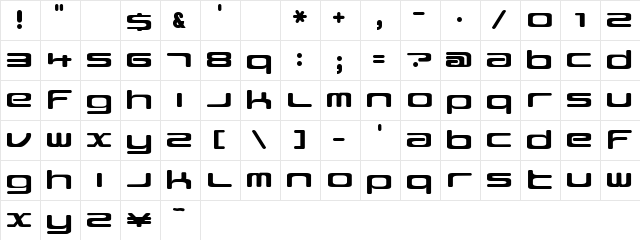
Marble Force 3
Design Context for Marble Force Typeface
Marble Force has the bold swagger of sports branding: strong, assertive letterforms designed to dominate headlines and jerseys alike.
Built for sports team identities, athletic apparel, event posters, and high-energy promotional material.